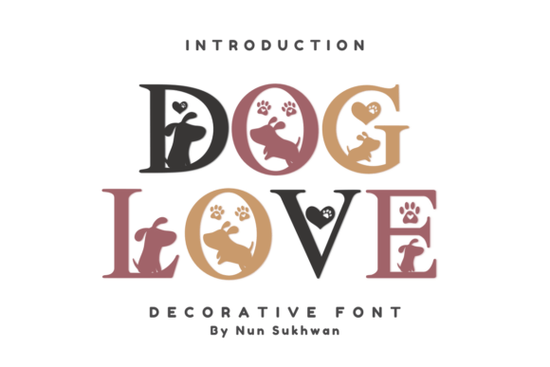
If you work on pet-themed projects, you know how hard it can be to find a typeface that actually feels fun and warm. The Dog Love Font is a decorative display typeface built around cute dog illustrations and paw print details. It's designed for projects where you want personality not just letters on a page. Whether you sell print-on-demand items or just love crafting, this font brings a playful, pet-friendly vibe to your work.
What Makes Dog Love Font Different From Other Decorative Fonts?
Most decorative fonts rely on abstract shapes or patterns. Dog Love Font takes a more specific approach each letterform is styled with dog-themed elements like tiny paw prints and pup silhouettes. The result is a typeface that immediately communicates a pet-lover message without needing extra graphics or clipart layered on top.
That said, it's a display font, which means it works best for short text: headers, logos, product titles, and social media graphics. If you need something for body copy, pair it with a clean sans-serif or serif font for contrast.
What Projects Can I Use This Font For?
Dog Love Font fits naturally into a range of creative projects. Here are some popular ways designers and crafters use it:
- Pet shop branding logos, signage, loyalty cards, and packaging
- Dog bakery labels treat packaging, menu boards, and thank-you tags
- Print-on-demand products t-shirts, mugs, tote bags, and stickers for dog owners
- Social media posts Instagram graphics, Facebook ads, and Pinterest pins targeting pet lovers
- Scrapbooking and card making handmade birthday cards, pet memorial pages, and photo album titles
- Event invitations pet adoption events, dog birthday parties, and fundraiser flyers
The font works especially well on light or pastel backgrounds where the details in each character can stand out clearly.
How Does It Pair With Other Fonts?
Since Dog Love Font is bold and detailed, pairing it with something simpler creates a balanced layout. Think of it this way: one font brings the charm, the other keeps things readable.
Here are a few pairing ideas that work well:
- Dog Love + a clean sans-serif for product descriptions and smaller text
- Dog Love + a handwritten script for greeting cards and invitations
- Dog Love + a monoline font for a modern, structured look
Is Dog Love Font a Good Fit for Print-on-Demand Sellers?
Short answer: yes, if your niche is pet owners. Dog-themed merchandise is a consistently popular category on platforms like Etsy, Redbubble, and Amazon Merch. The challenge most sellers face is standing out and a distinctive font is one way to do that without relying on complex illustrations.
With Dog Love Font, you can create:
- T-shirt designs with quotes like "Dog Mom Life" or "Fueled by Puppy Kisses"
- Mug designs with short, punchy phrases
- Sticker sheets and planner accessories for dog enthusiasts
- Wall art prints for pet-friendly home decor
Tips for Getting the Most Out of Decorative Display Fonts
Using a themed font well takes a little more thought than just typing and going. Here are a few practical tips:
- Keep your text short. Display fonts shine with 1–5 words. Anything longer gets hard to read.
- Size it generously. Small text hides the details that make decorative fonts special.
- Watch your spacing. Some decorative fonts need extra letter-spacing to avoid a cramped look.
- Test on your actual medium. A font that looks great on screen might lose detail on fabric or small stickers.
- Use color intentionally. A single bold color often works better than gradients or multicolor fills for decorative typefaces.